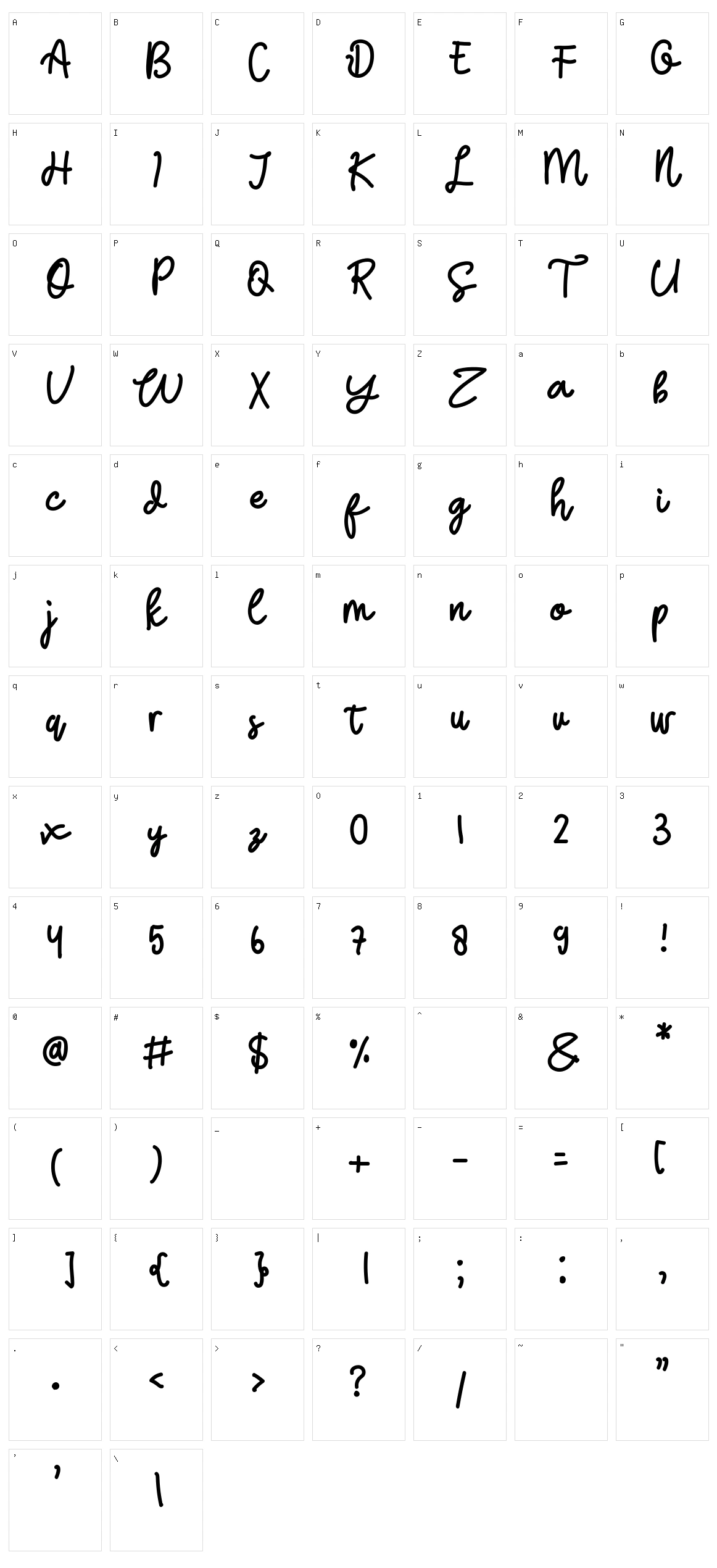
The free font Stay Beauty Inside is carefully designed by share font, showcasing a thoughtful balance of creativity and usability and falls under the Script font style. When you download the ZIP file, it contains only 74.35 KB of font files, making it lightweight and quick to download. Please review the license details below to understand permitted usage and distribution rights. If license information is not available, we recommend using this font for personal projects only or contacting the author directly for commercial usage permissions.